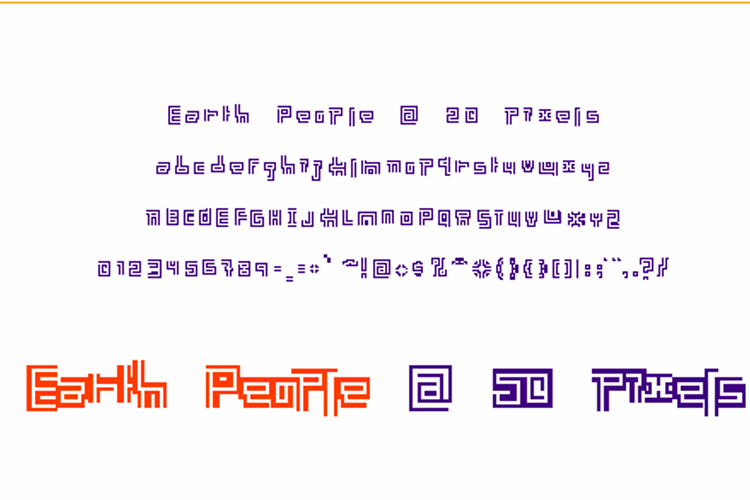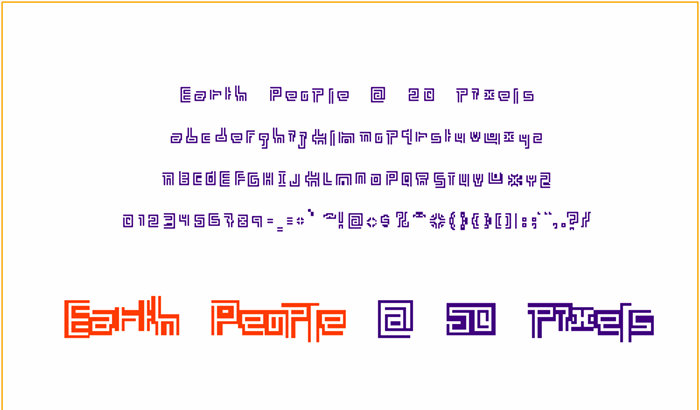
Earth People Font
Earth People is an open-ended outline font. Set text in it sans anti-aliasing for small file sizes, and low levels of legibility. ;-)
Note: if you set type at even multiples of twenty pixels the line weight will be relatively even. e.g. 20, 40, 60 , 80...
Odd multiples of twenty pixels will make the line weight funky (see the image above). e.g. 30, 50, 70, 90...